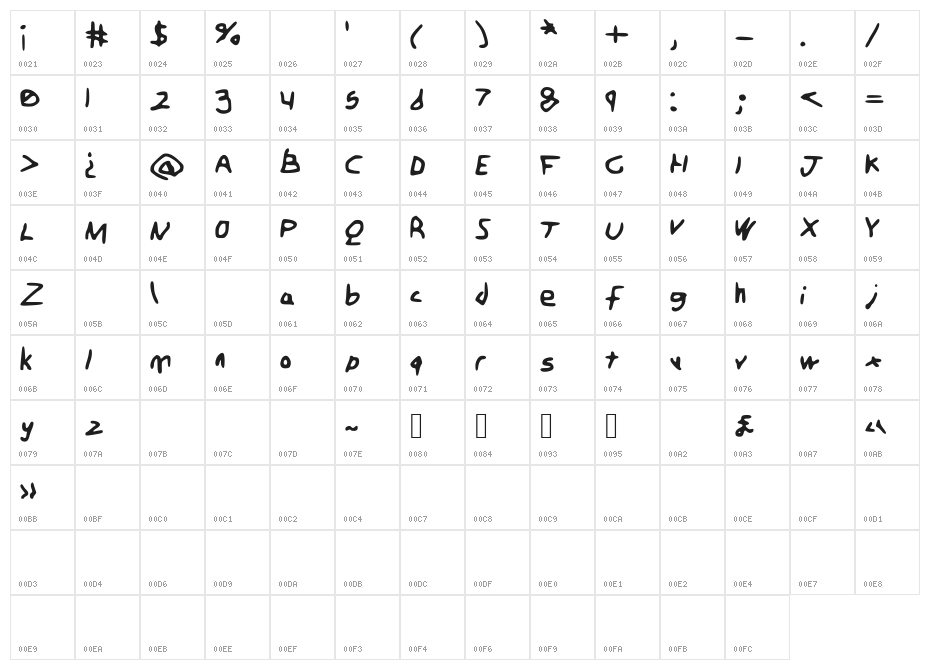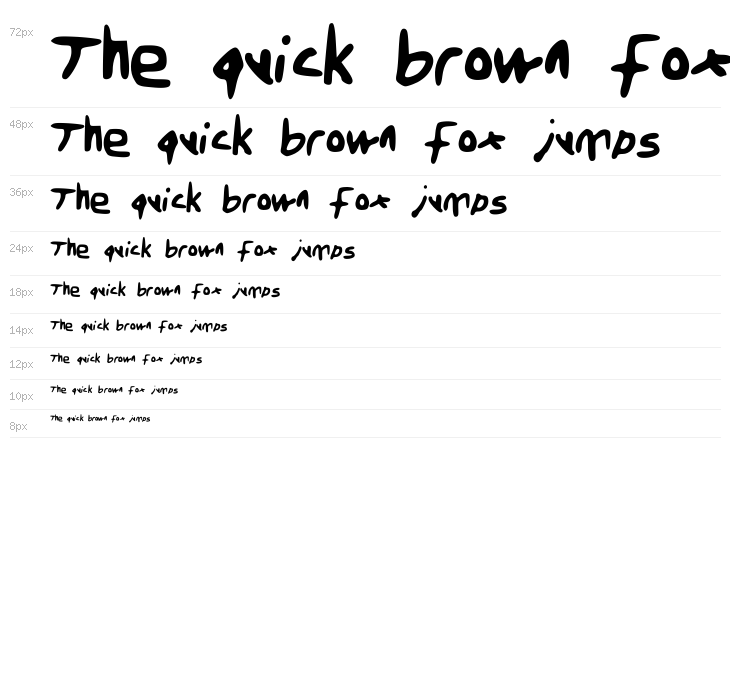
BareMinimum Font
BareMinimum Description
This font features a playful and casual handwritten style, characterized by its bold and slightly irregular strokes. The letters have a fluid, organic feel, with varying thickness that adds a dynamic and lively appearance. The uppercase and lowercase letters maintain a consistent style, with rounded edges and a slightly slanted orientation, giving the font a relaxed and informal vibe. The numbers and special characters follow the same design principles, ensuring a cohesive look across all glyphs. This font's unique charm makes it suitable for projects that require a personal touch or a fun, approachable aesthetic.
| Overall Style | Casual |
| Use Case | Logos, Headlines, Informal Text |
| Proposed Projects | Ideal for greeting cards, children's books, playful branding, and social media graphics. |